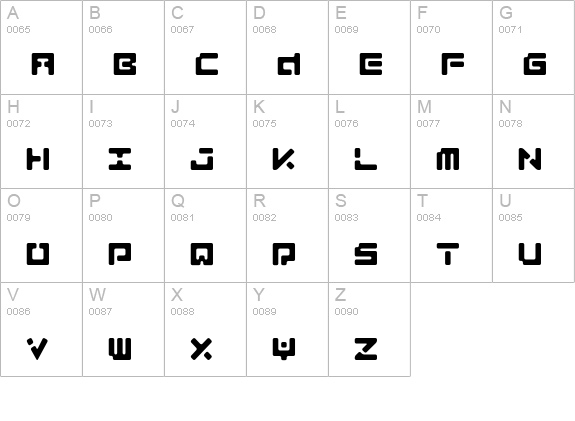
LuggageRoundBrokenHeavy Font Details
LuggageRoundBrokenHeavy font is a unique and eye-catching typeface that combines elements of ruggedness and elegance. Its broken and heavy design adds a touch of edginess to any project, making it perfect for bold headlines, posters, and branding materials. The rounded edges give it a friendly and approachable feel, while the heavy weight commands attention and makes a strong visual impact. This font is available for free download at FontsMarket.com, making it easily accessible for designers and creatives looking to add a touch of personality to their projects. Whether you're working on a grunge-inspired design or want to make a statement with your typography, LuggageRoundBrokenHeavy font is sure to stand out and make a lasting impression.